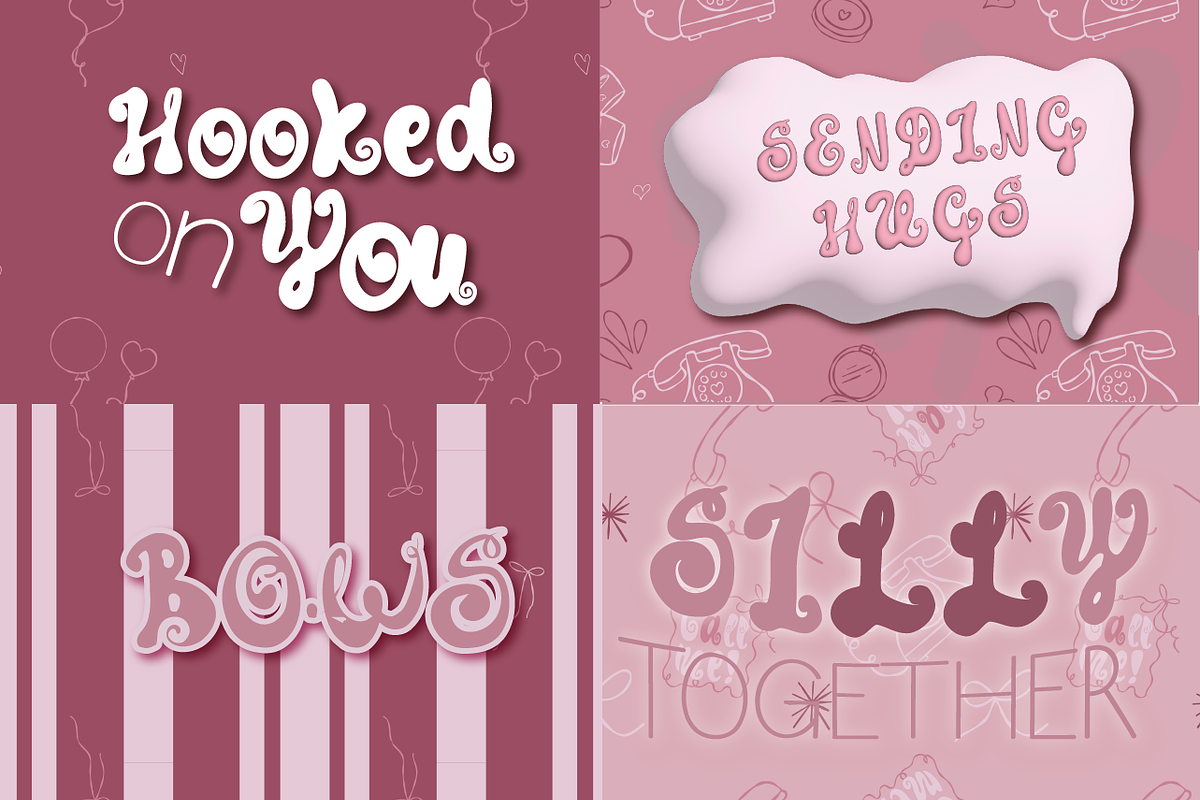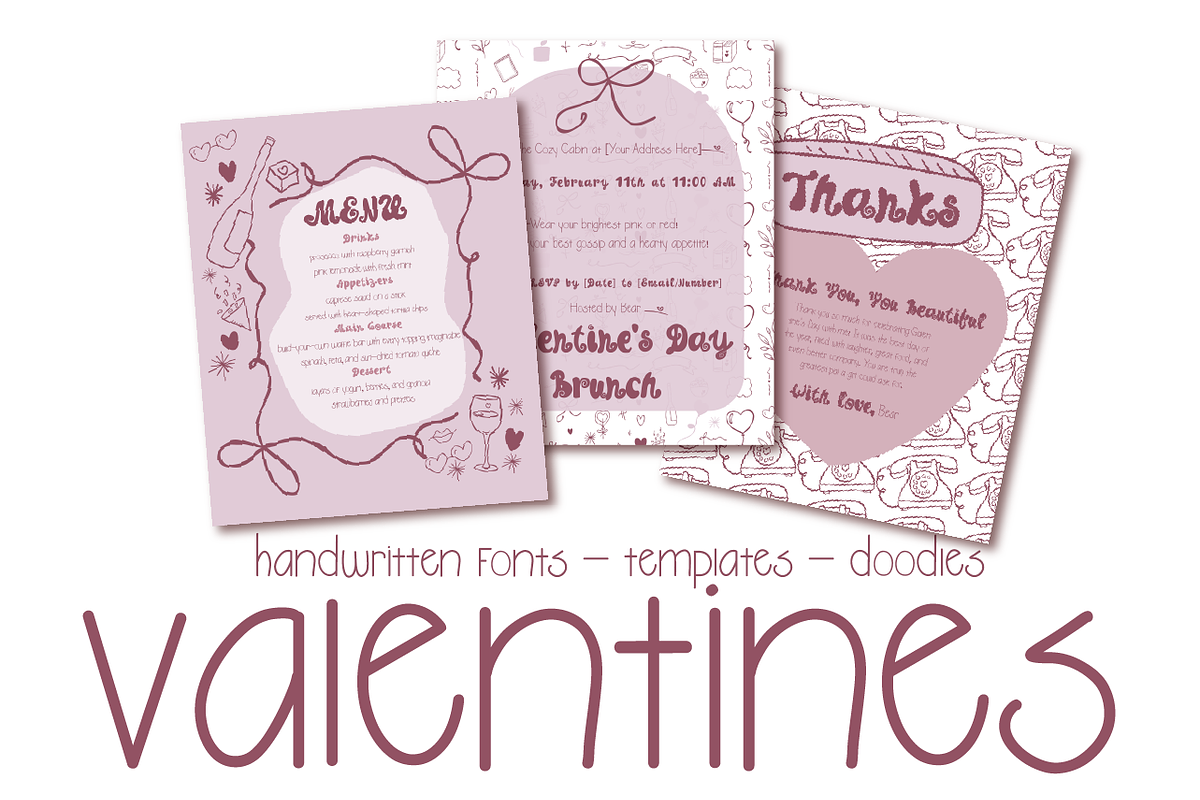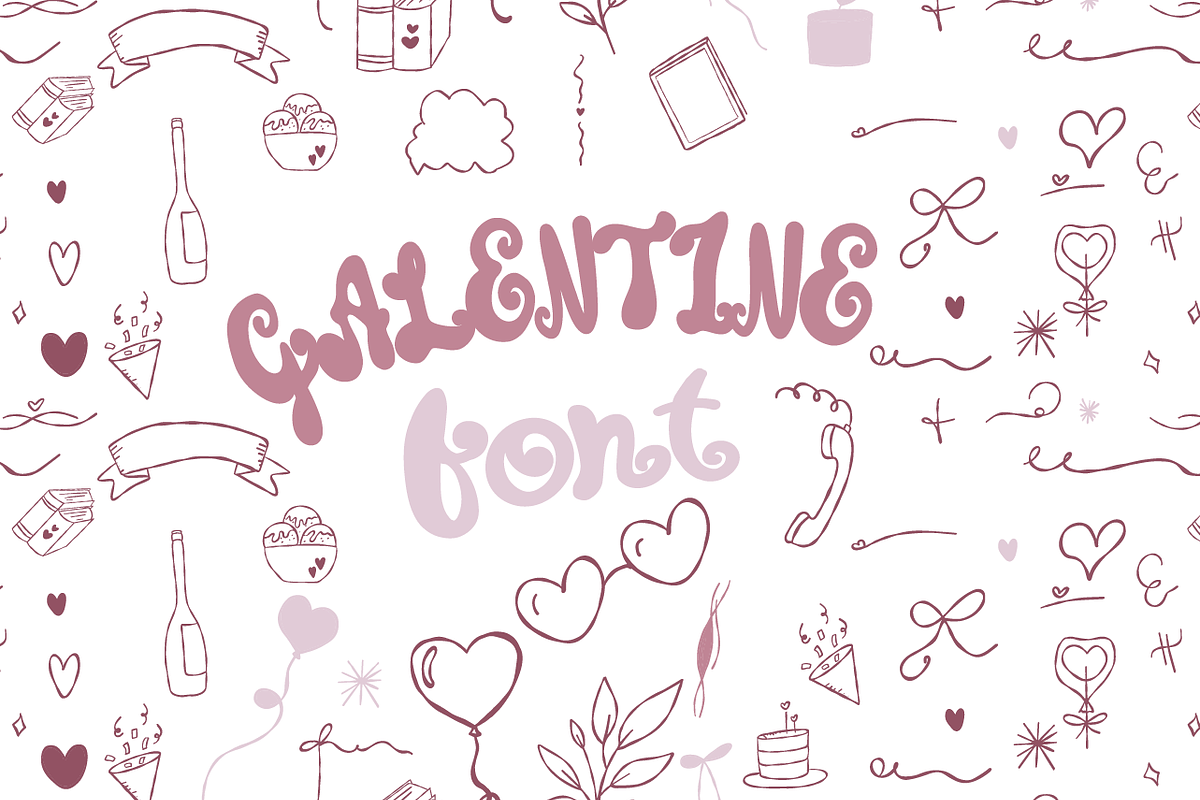
Galentine’s Valentine Bundle
This bundle includes four coordinated sets
- The Galentine's Font A fun, bubbly, hand-lettered font perfect for friendly headlines, quotes, and logos. Includes: Uppercase, lowercase, numbers, and punctuation. Formats: OTF
- 60+ Hand-Drawn Doodles A set of cozy, romantic illustrations that match the font. You'll find rotary phones, coffee cups, sweet treats, hearts, bows, and more. Formats: High-quality PNG (transparent background) and SVG (vector) files.
- Three Photoshop Templates Get a head start with these easy-to-edit, layered templates:
Valentine's Day Brunch Invitation
Galentine's Menu Card
"Thanks, You Beautiful" Thank You Card
- Four Seamless Patterns A set of tileable patterns in soft pinks and deep reds. They're perfect for backgrounds, digital paper, or stationery. Details: High-resolution 12"x12" PNG files (3600x3600 px) at 300 dpi.